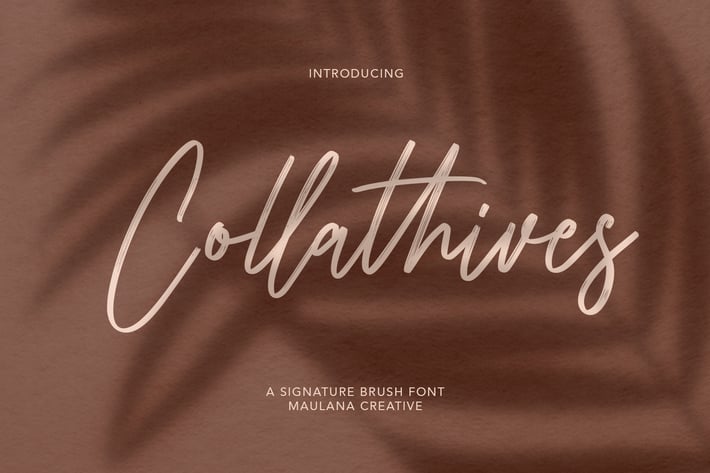
Collathives Signature Brush Font
Collathives is a signature brush font with extra lowercase alternate, and opentype features. It support multilingual more than 100+ language. This font is suitable for logo design and any awesome project you create. Make stunning work with Collathives signature font.
Give your designs an authentic handcrafted feel. Collathives Signature Brush Font is perfectly suited to logo, stationery, branding, typography quotes, magazine or book cover, website header, clothing, branding, packaging design, restaurant and more.